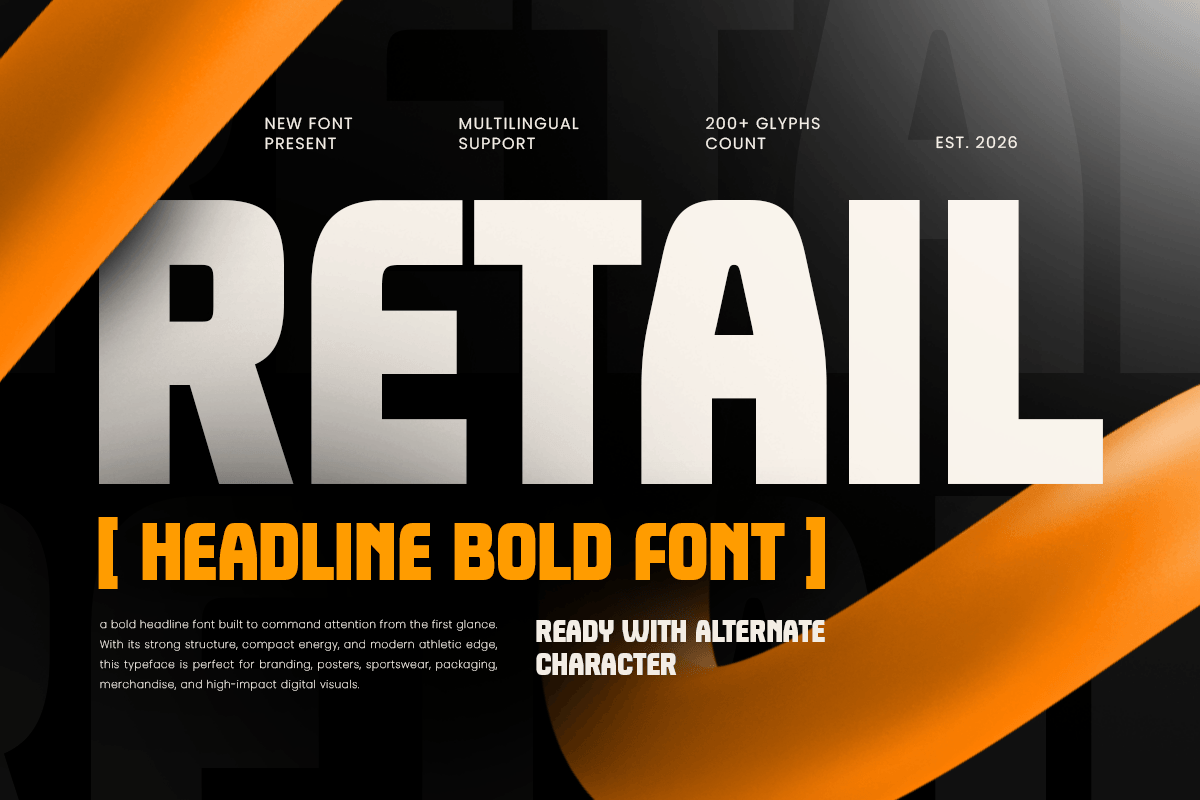
Retail
-Condensed Bold FontRetail - Condensed Bold Font
RETAIL is a condensed bold font designed to deliver strong visual impact with a clean, space-saving structure. With tall proportions, thick strokes, and a confident display rhythm, this typeface creates a bold tone that feels modern, professional, and instantly attention-grabbing.
Built for headline-driven design, RETAIL works beautifully across logos, wordmarks, posters, signage, packaging, labels, website headers, promotional banners, social media graphics, and marketing campaigns. Its condensed form helps maximize space while keeping every word sharp, readable, and visually powerful across both digital and print layouts.
Whether you’re creating retail branding, designing sale posters, building product packaging, or crafting bold advertising layouts, RETAIL provides a compact typographic foundation that makes your message feel clear, strong, and memorable.
Inspiration Behind RETAIL
RETAIL is inspired by bold commercial signage and modern condensed typography—where clarity, strength, and efficient spacing create instant visual hierarchy. The design focuses on strong vertical rhythm and clean readability to support retail campaigns, promotional headlines, and impactful brand communication.
RETAIL Font Features:
Condensed bold letterforms with strong display character
Perfect for headlines, logos, signage, and promotional typography
Space-saving structure for compact yet impactful layouts
High readability for posters, packaging, and marketing visuals
Retail branding, sale posters, and promotional campaigns
Logos, wordmarks, and bold brand identity systems
Packaging, labels, signage, and product displays
Website headers, social media graphics, and digital ads
Presentations, banners, and modern marketing materials
Make every promotion stand out with RETAIL—a condensed bold font built for strong, high-impact visual communication. ✨